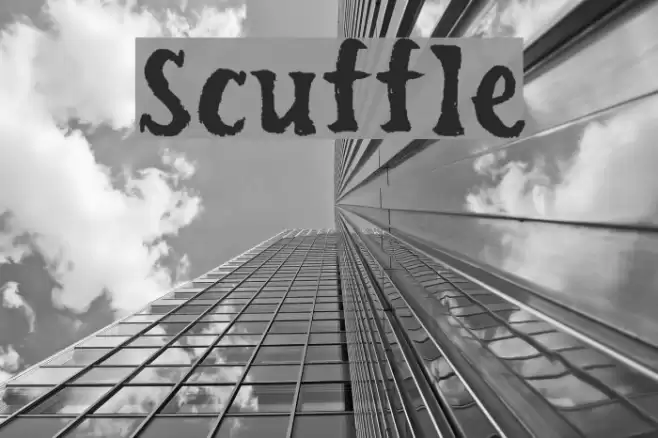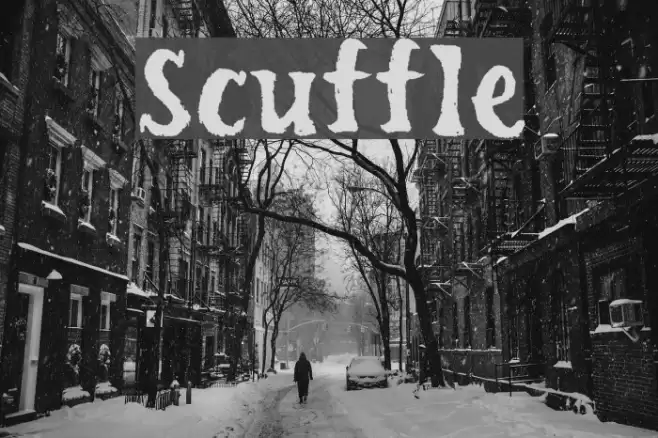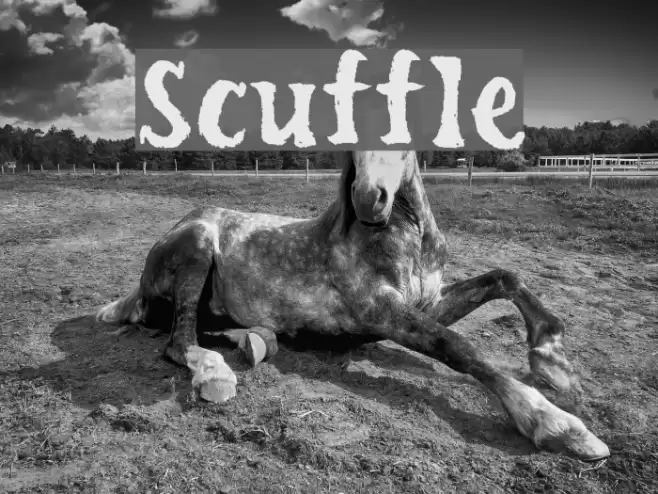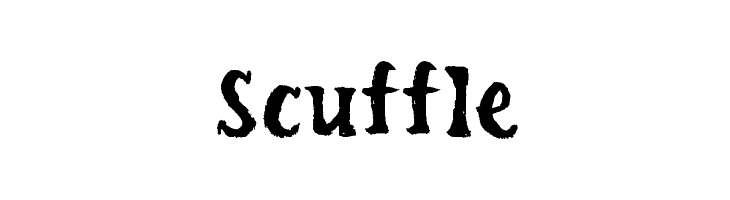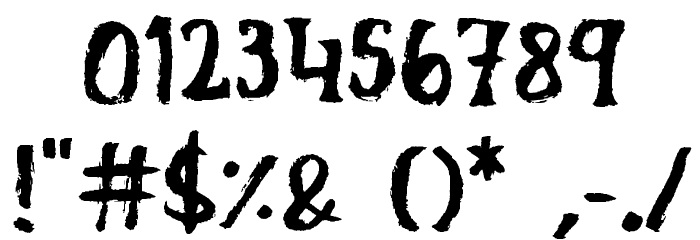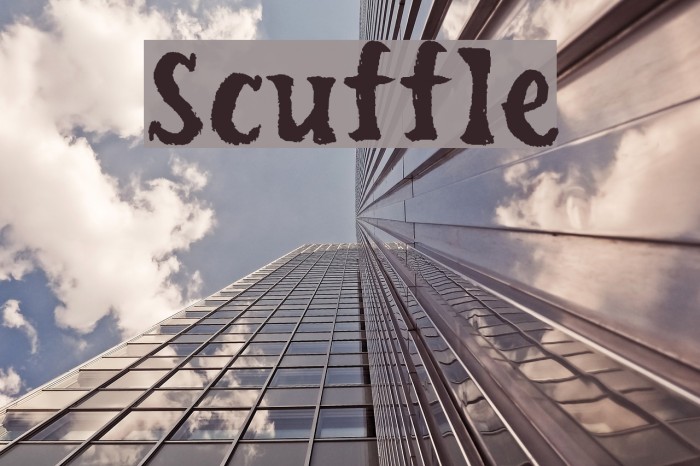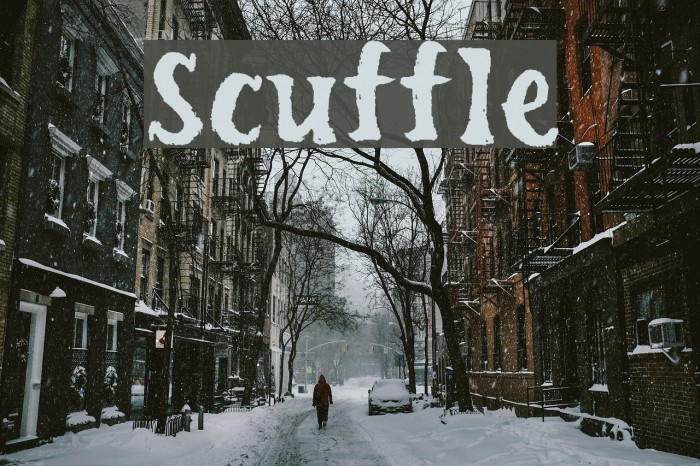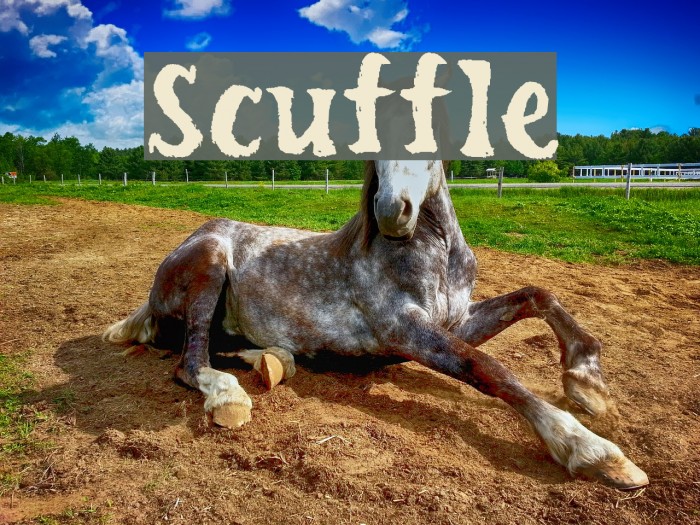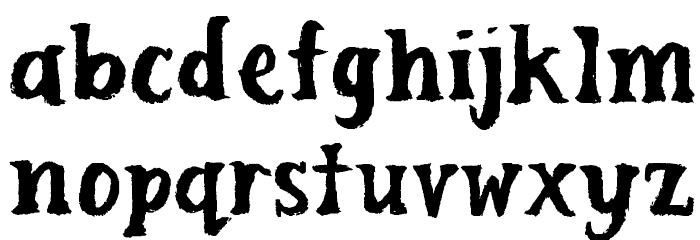
Scuffle Font
Scuffle Description
This font exhibits a rugged, hand-drawn aesthetic, characterized by its irregular and bold strokes that give it a dynamic and energetic feel. The letters have a slightly distressed appearance, with uneven edges and varying stroke widths that add to its handcrafted charm. The uppercase and lowercase letters maintain a consistent style, while the numerals and special characters complement the overall look with their bold and expressive forms. This font's unique style makes it stand out, offering a sense of creativity and individuality.
A bold, hand-drawn font with a rugged and dynamic appearance from Distorted Eroded fonts.
- Proposed Projects: Ideal for projects that require a creative and artistic touch, such as posters, album covers, branding for artisanal products, or any design that seeks to convey a sense of individuality and creativity.